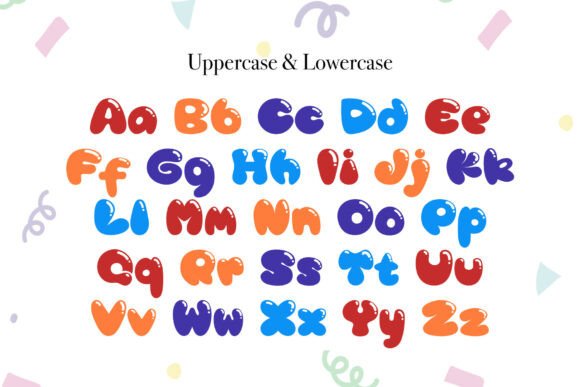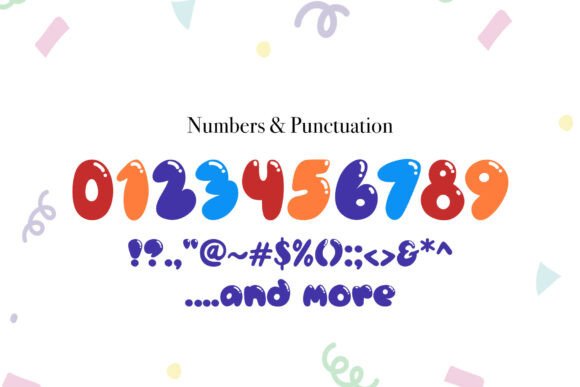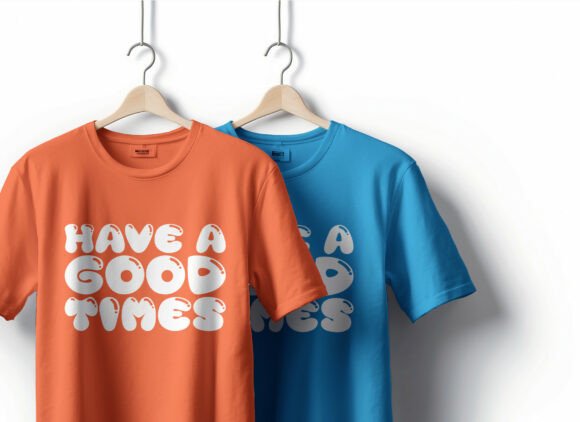
Introduction to Ploofy Font
Presenting Ploofy, a captivating, round, and bubbly display typeface radiating an aura of joviality and blithe spirit.
This font is an ideal selection for endeavors requiring a dash of amusement and frolic Embracing curves, soft angles, and robust, bold letters, Ploofy perfectly encapsulates the quintessence of this unique design philosophy.